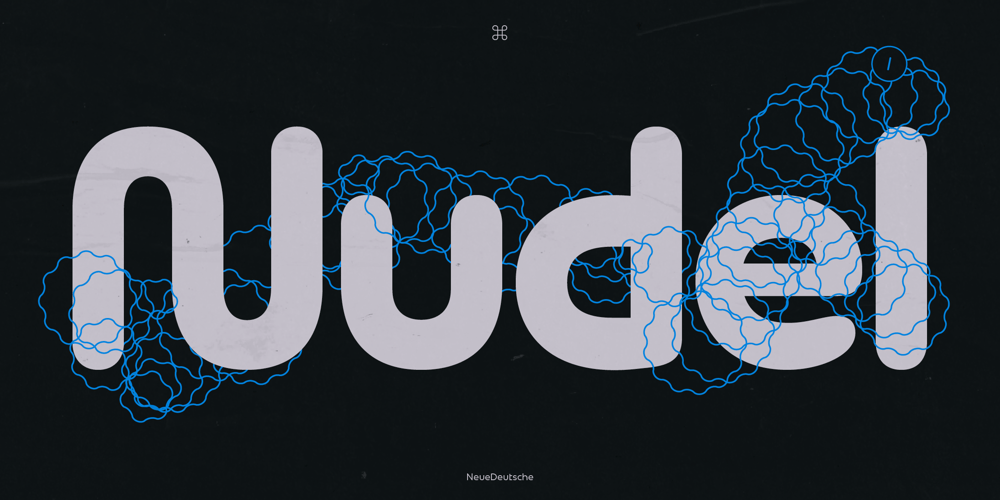
ND Nudel Font Family was designed by Wolf Boese and published by NeueDeutsche. ND Nudel contains 8 styles and family package options. I’ve been really tryin’, baby, tryin’ to hold back this Rounded Sans for so long. ND Nudel is the food-positive typeface you have been (secretly or not so secretly) waiting for! Stop beatin’ ’round the bush and get into all the (20) tasty, yummy, and shameless zesty stylistic variations. Vanilla or with as many tangy alternates as you could imagine.